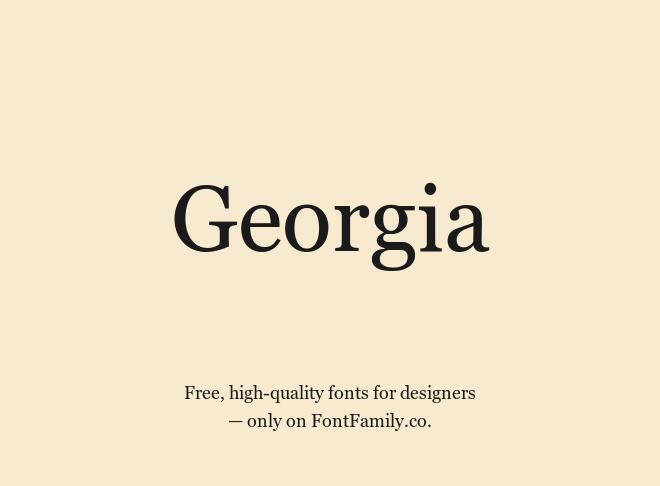
Georgia Font Family
The Georgia Font Family, designed by Matthew Carter and Tom Rickner, is a serif typeface that blends classic and modern styles. Its high readability makes it an excellent choice for both print and digital media. Georgia is known for its elegant letterforms and robust design, making it stand out in various applications such as headlines, body text, and more. Its distinct style sets it apart from other serif fonts like Times New Roman. The font is versatile and can adapt to both formal and casual design themes. Its wide character set supports multiple languages. Choosing Georgia Font Family for your design project will not only enhance the aesthetic appeal but also ensure the text is reader-friendly.
Categories | Modern Classic Serif |
Author | Matthew Carter and Tom Rickner |
Release Year | 1993 |